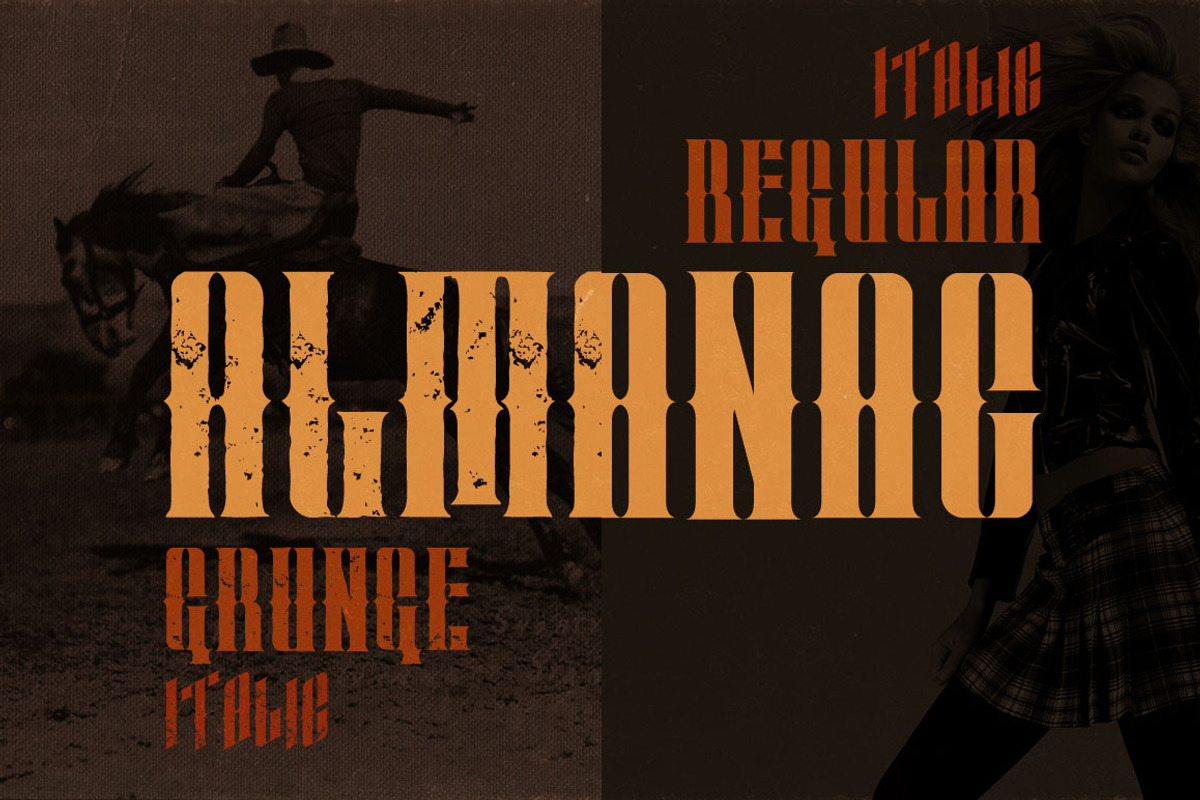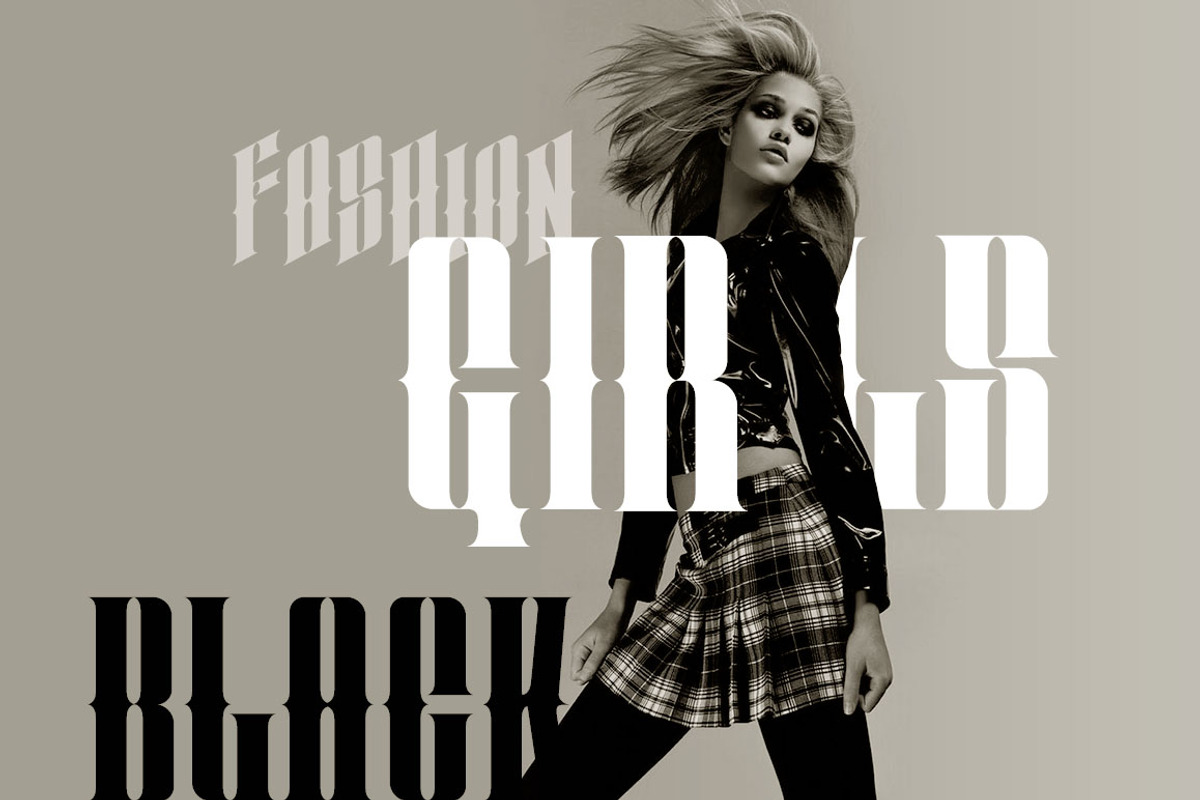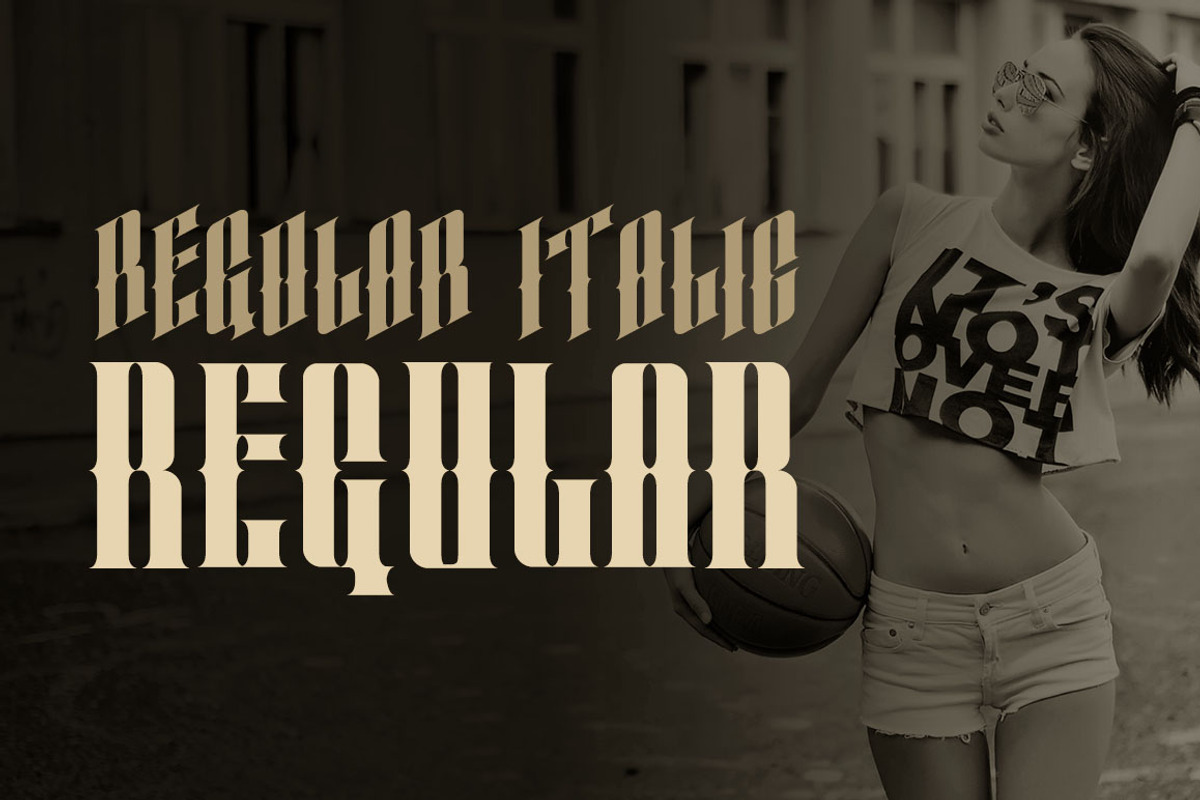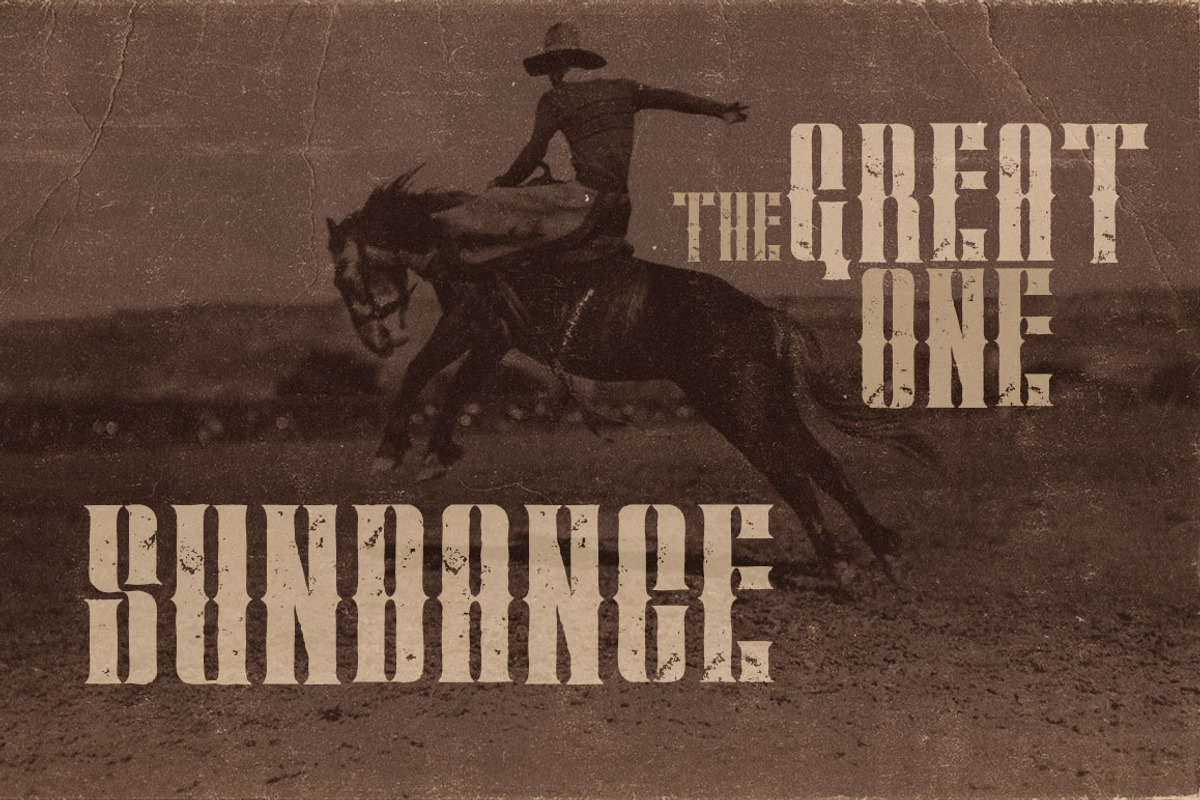
Almanac Font
Almanac Font by JumboDesign is a font selected for branding, posters, packaging, typography.
Why Almanac Font is worth a look
Almanac Font by JumboDesign fits naturally into Branding, posters, packaging, typography.